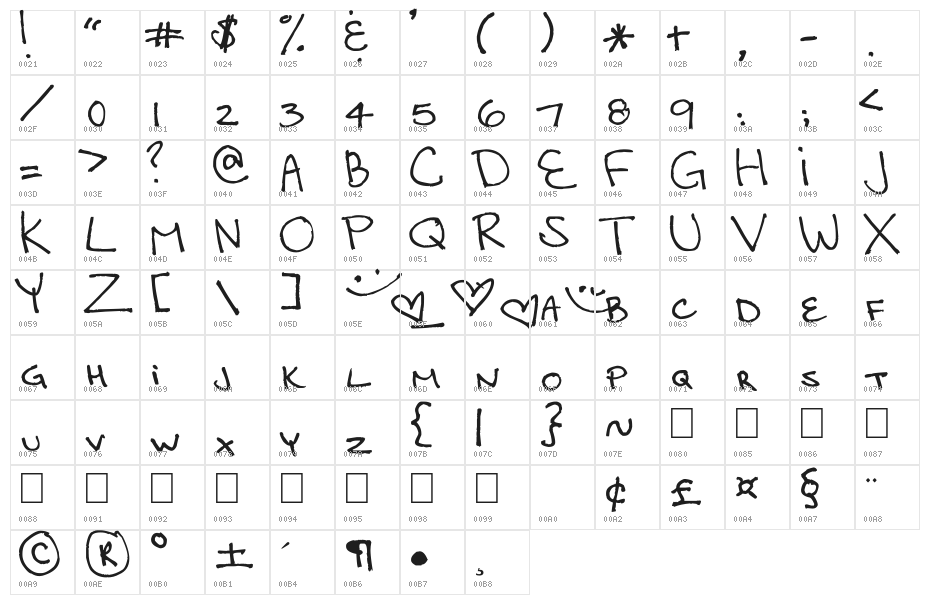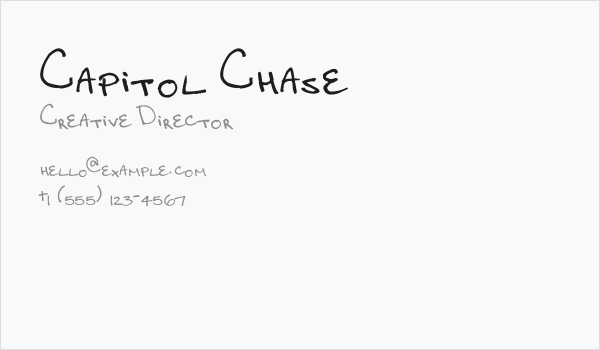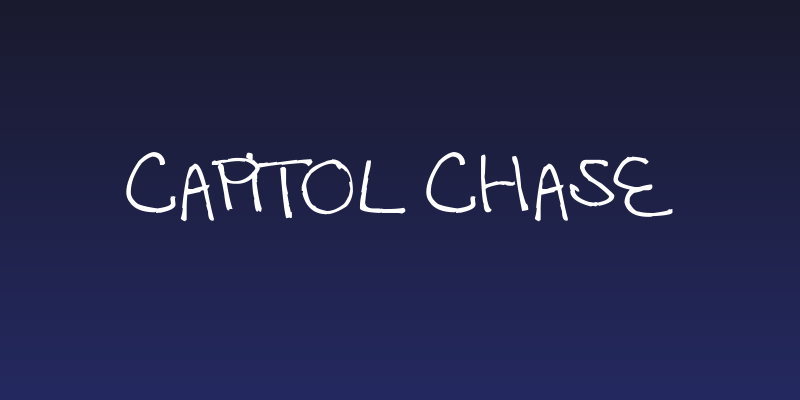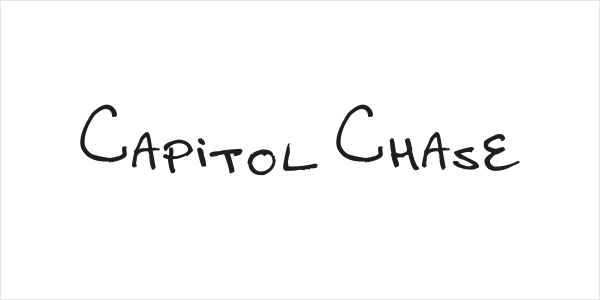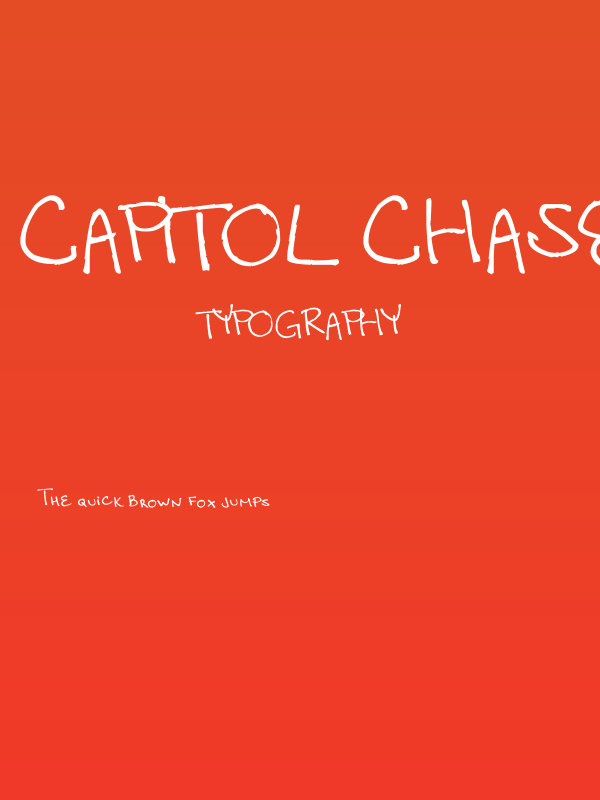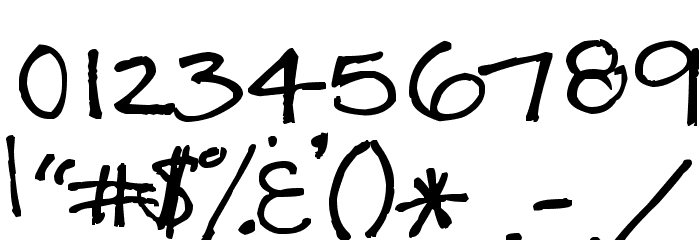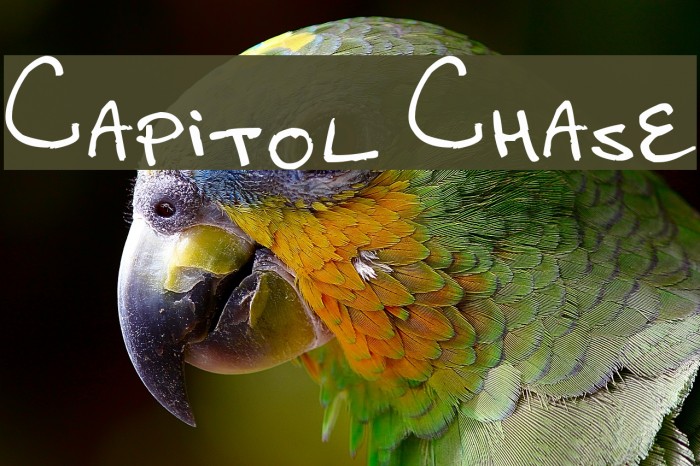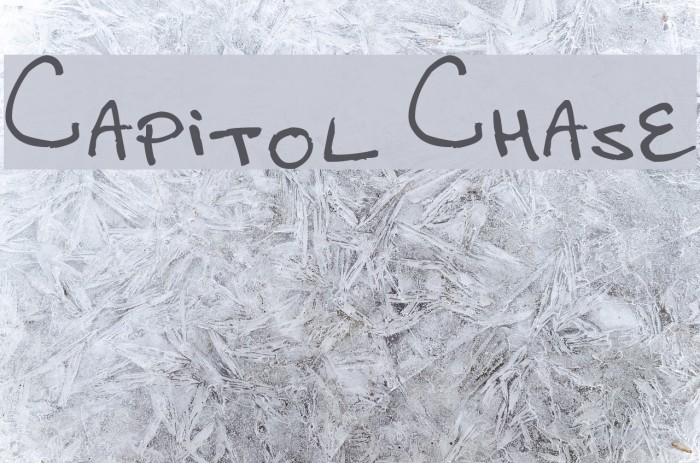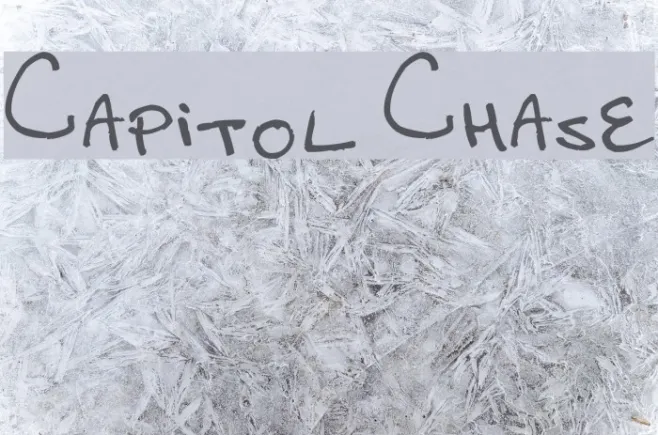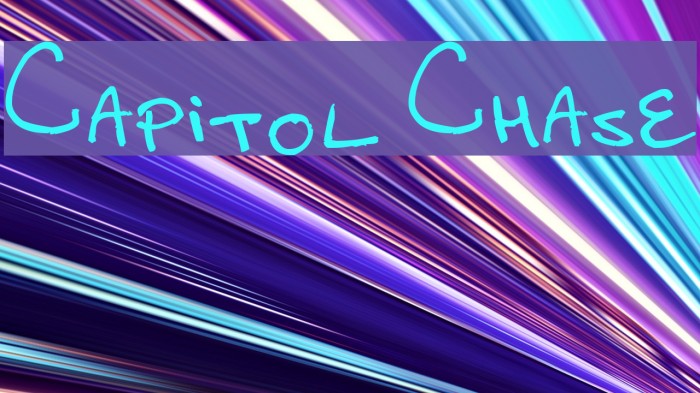
Capitol Chase Font
Capitol Chase Description
This font features a playful and informal handwritten style, characterized by its irregular strokes and casual appearance. The letters are slightly slanted, giving a dynamic and energetic feel. The uppercase and lowercase letters maintain a consistent style, with rounded edges and a slightly uneven baseline, adding to its charm. The numerals and special characters follow the same whimsical design, making it suitable for creative and informal projects. Its unique style is perfect for capturing attention and conveying a sense of fun and spontaneity.